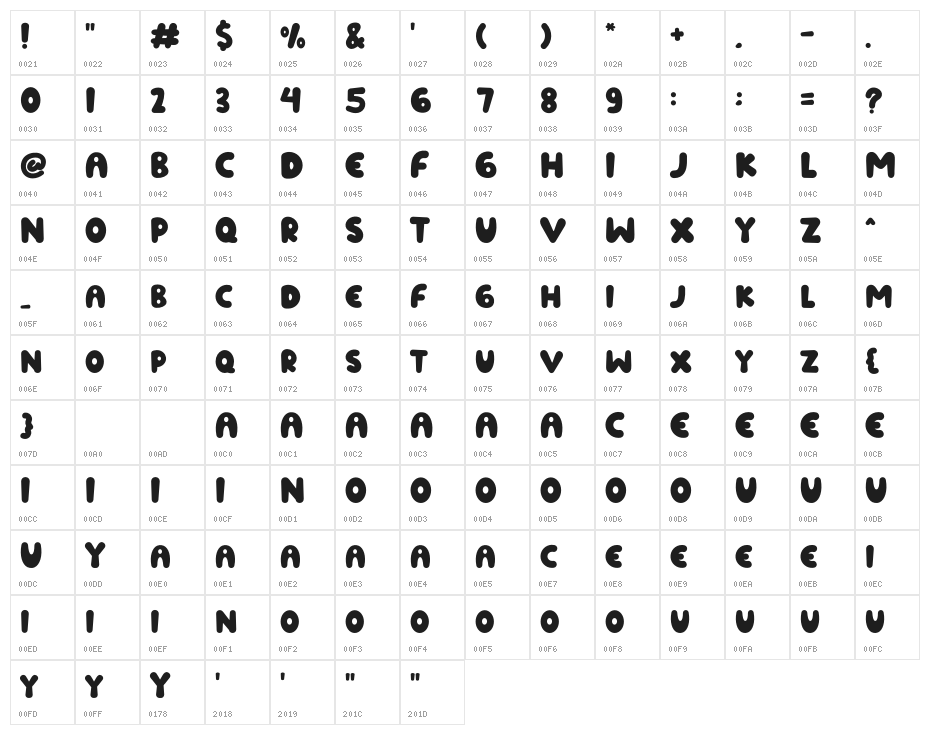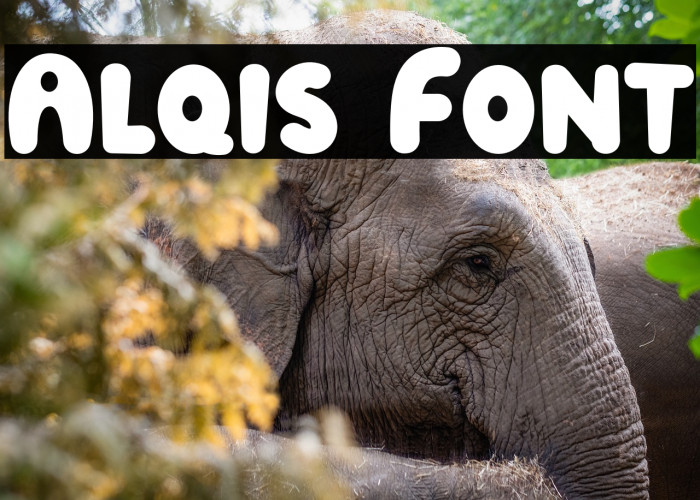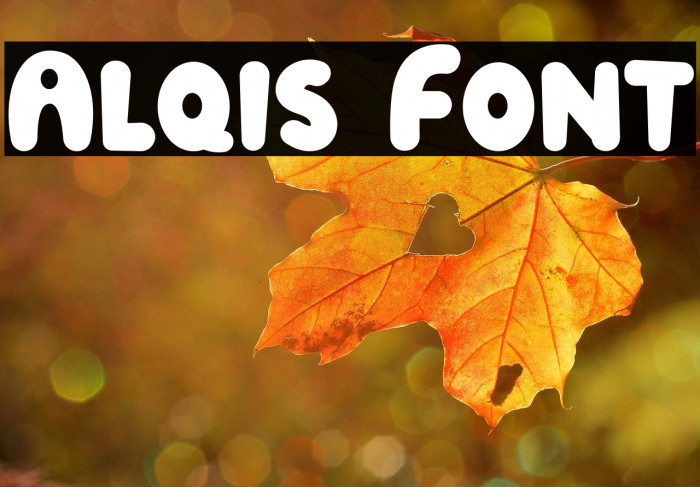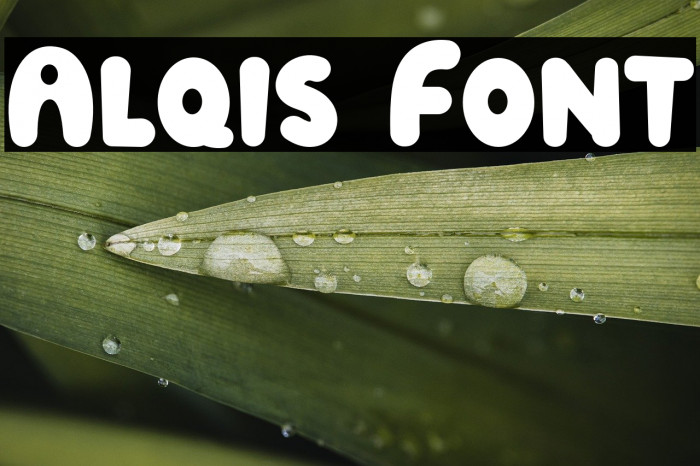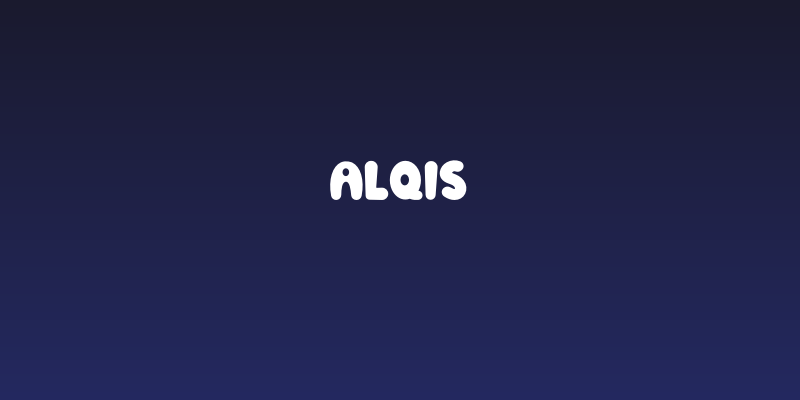
Alqis Font
Alqis Description
This playful and bold font features rounded, bubble-like characters that convey a sense of fun and approachability. The letters are thick and uniform in weight, with smooth curves and a slightly condensed appearance. The font maintains a consistent stroke width throughout, giving it a cohesive and balanced look. Its whimsical style makes it ideal for projects that aim to capture attention and evoke a sense of joy and creativity. The characters are well-spaced, ensuring readability while maintaining the font's distinctive style.
| Width | Condensed |
| Overall Style | Playful |
| Proposed Projects | Ideal for children's books, playful branding, party invitations, and creative posters. |